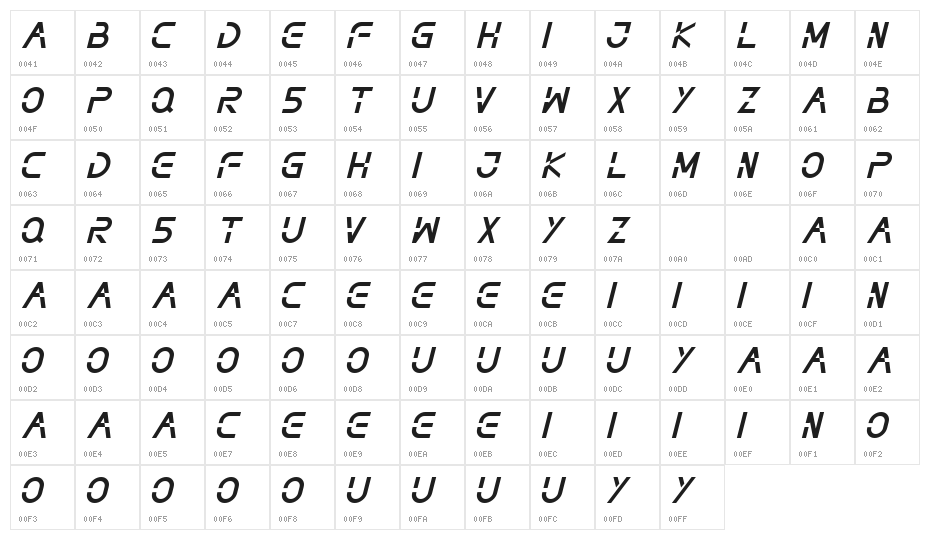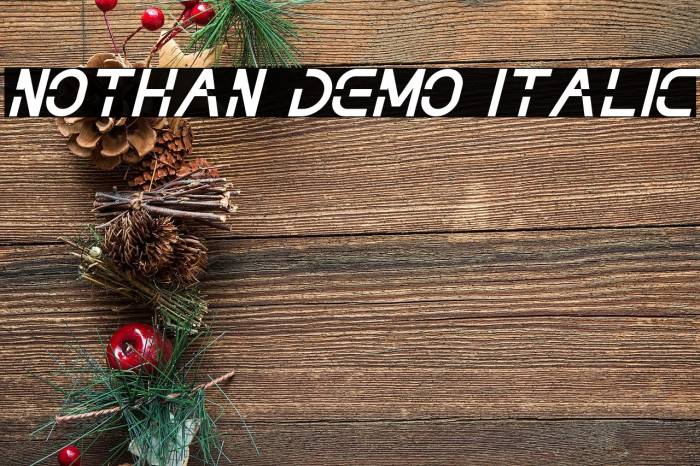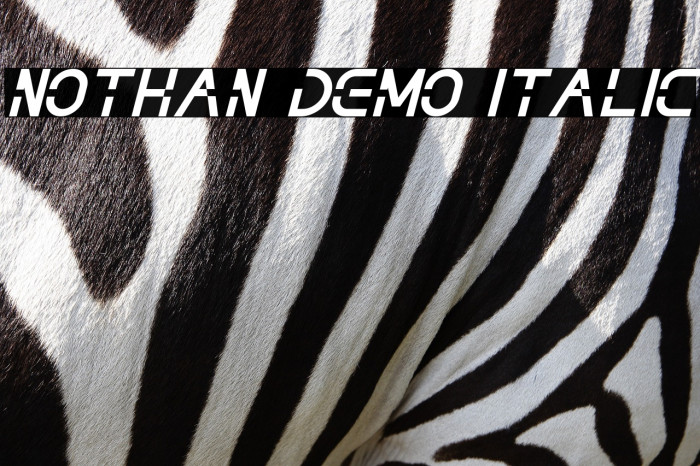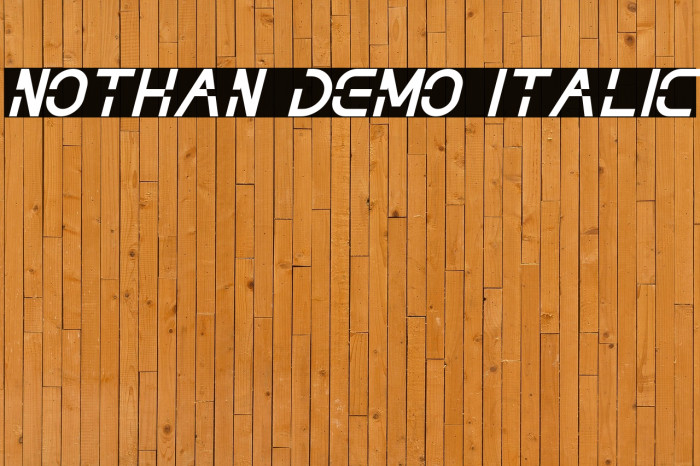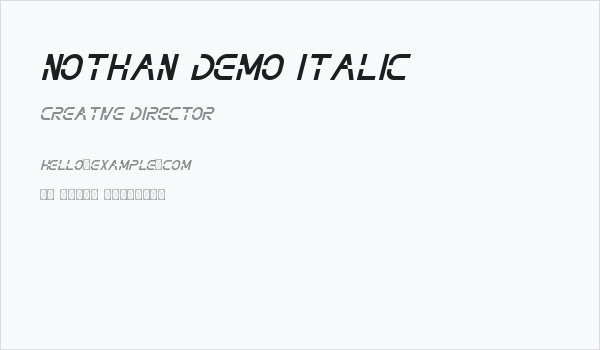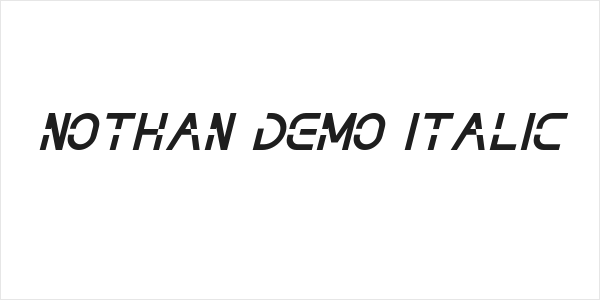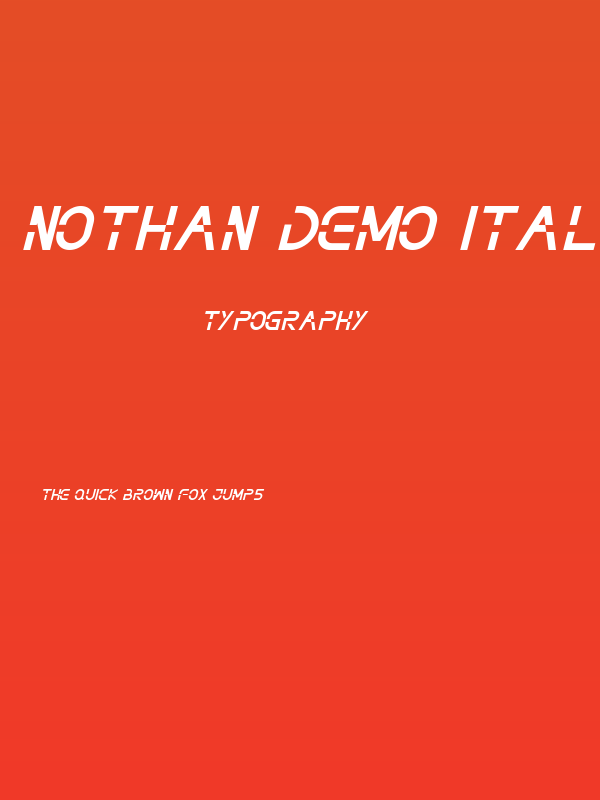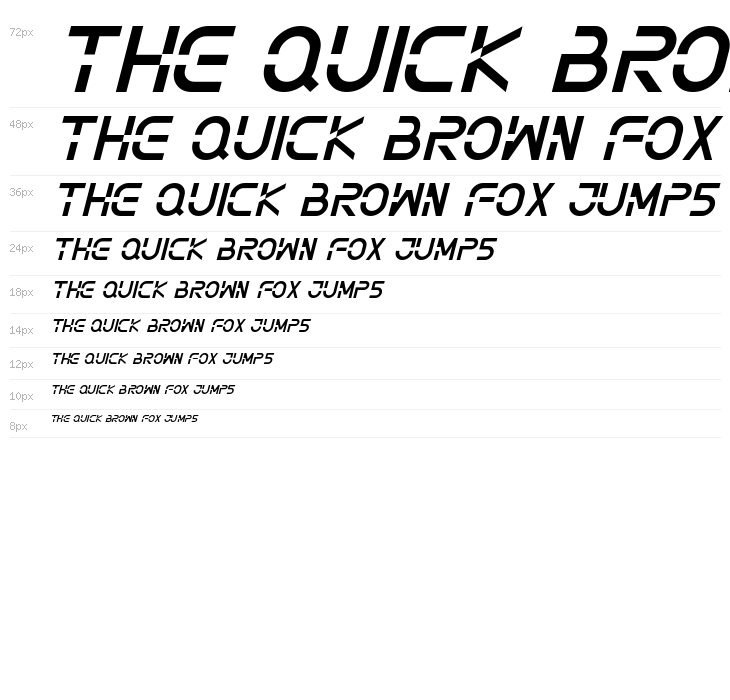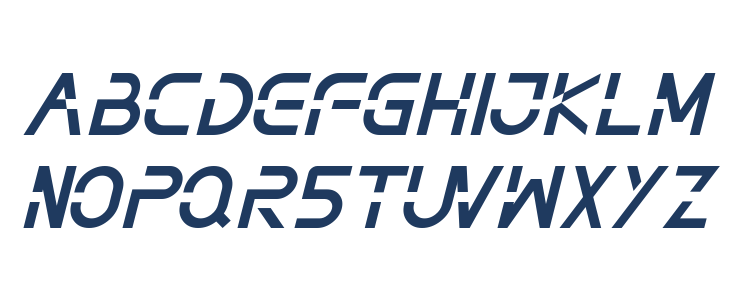
NOTHAN DEMO Italic Font
NOTHAN DEMO Italic Description
This font presents a modern and dynamic style with a distinct italic slant, giving it a sense of motion and speed. The characters are bold and feature a geometric design with sharp angles and clean lines. The uppercase letters are uniform in height, while the lowercase letters maintain a consistent baseline, enhancing readability. The numbers and special characters are designed to match the overall aesthetic, providing a cohesive look. The font's unique style makes it suitable for projects that require a contemporary and energetic appearance.
| Use Case | Logos, Headlines, Branding |
| Proposed Projects | Ideal for branding, sports team logos, automotive designs, and dynamic advertising materials. |